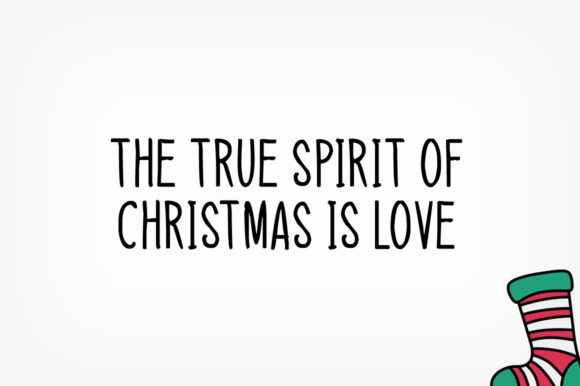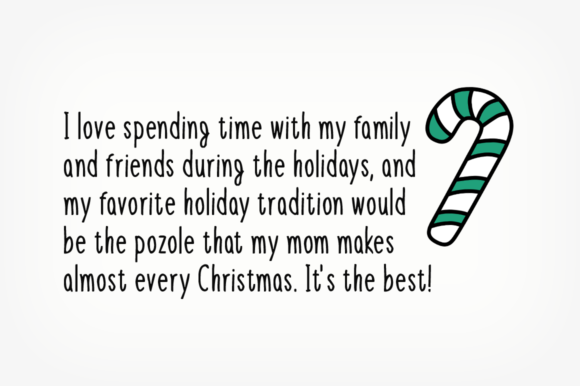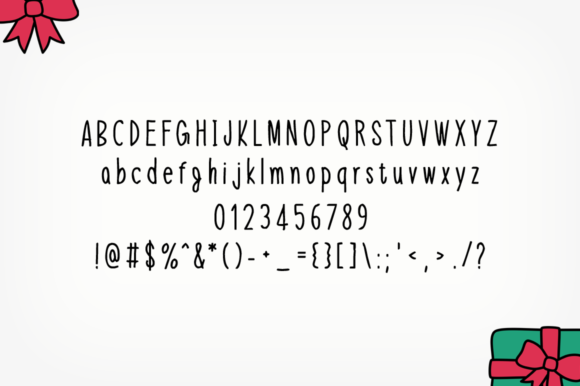
Introduction to Merry Integrity Font
Do you remember the moment when your creative project finally starts to come together? The font, the colors, the overall aesthetic – everything feels just right. It’s that magical feeling that makes all the hard work worth it. For designers, finding the perfect font can be the difference between a mediocre design and a truly stunning one. And that’s where the Merry Integrity Font comes in – a simple yet elegant handwritten font that’s sure to elevate any project.
With its natural and unique style, the Merry Integrity Font is incredibly versatile and can be used in a wide range of designs, from invitations and greeting cards to social media graphics and websites. And the best part? It’s completely free to download, making it an invaluable resource for designers of all levels.
Whether you’re working on a high-quality design for a client or a personal project, the Merry Integrity Font is sure to bring a touch of professionalism and sophistication to your work. Its transparent background makes it easy to use with any image or background, and its high-quality design ensures that it will look great on any device.
Key Features of Merry Integrity Font
- Unique, hand-drawn design with a touch of whimsy, perfect for creative projects and adding a personal touch.
- Perfect for adding a playful and festive touch to designs, making it ideal for holiday-themed projects and designs.
Honest Review: Merry Integrity Font
I recently stumbled upon the Merry Integrity Font while searching for a high-quality design resource for a creative project. I was excited to give it a try and see if it would meet my expectations.
- The Merry Integrity Font has a beautiful, elegant design that makes it perfect for a variety of applications, from wedding invitations to business cards.
- The Merry Integrity Font only comes in a limited range of weights and styles, which may not be ideal for more complex design projects.
- The font may not be suitable for use in small text sizes, as it can appear blurry or difficult to read.
Overall, I was impressed with the Merry Integrity Font and would definitely recommend it as a design resource for simple to medium-complexity projects. However, for more intricate designs, you may want to consider a more comprehensive font package.
Tips for Getting the Most Out of the Merry Integrity Font
To get the most out of the Merry Integrity Font, make sure to:
- Use the font with a transparent background to create a clean and modern design.
- Experiment with different font sizes and styles to add visual interest to your design.
The Merry Integrity Font is perfect for:
Alternatives to Merry Integrity Font
The Great Vibes Font is a beautiful script font perfect for creative projects that require a touch of elegance. It’s ideal for designing wedding invitations, event promotions, and other high-end design materials. This font features a high-quality design with a transparent background, making it easy to customize. Compared to Merry Integrity Font, Great Vibes Font has a more refined and sophisticated look.
Pacifico Font is a popular choice for designers looking for a unique and stylish font. It’s perfect for designing logos, brochures, and other marketing materials that require a creative and eye-catching design. This font is available for free download and features a high-quality design with a transparent background. Compared to Merry Integrity Font, Pacifico Font has a more relaxed and casual look.
The Alex Brush Font is a elegant and sophisticated script font perfect for designing high-quality materials such as business cards, letterheads, and website headers. It’s ideal for creative projects that require a touch of luxury and sophistication. This font features a high-quality design with a transparent background, making it easy to customize. Compared to Merry Integrity Font, Alex Brush Font has a more refined and polished look.
Q: Does Merry Integrity Font have a transparent background?
No, Merry Integrity Font does not have a transparent background. However, you can easily create a transparent background using design software like Adobe Illustrator or Photoshop. This allows you to use the font on any background, giving you complete design flexibility.